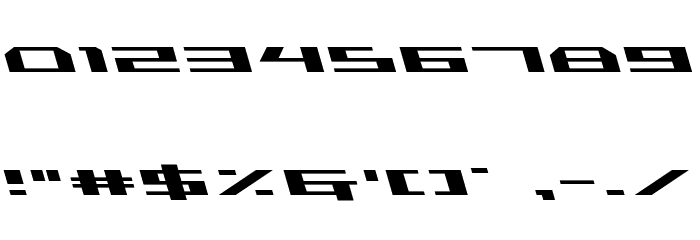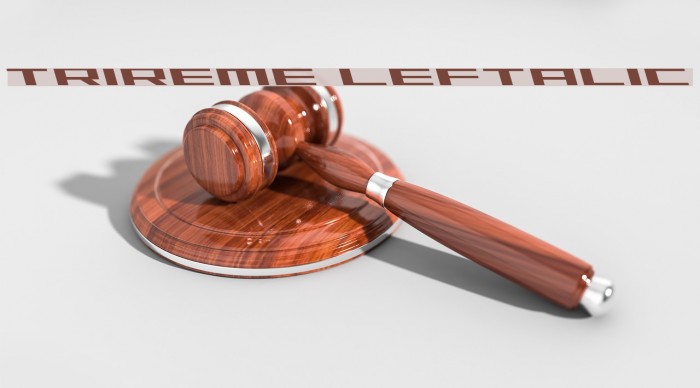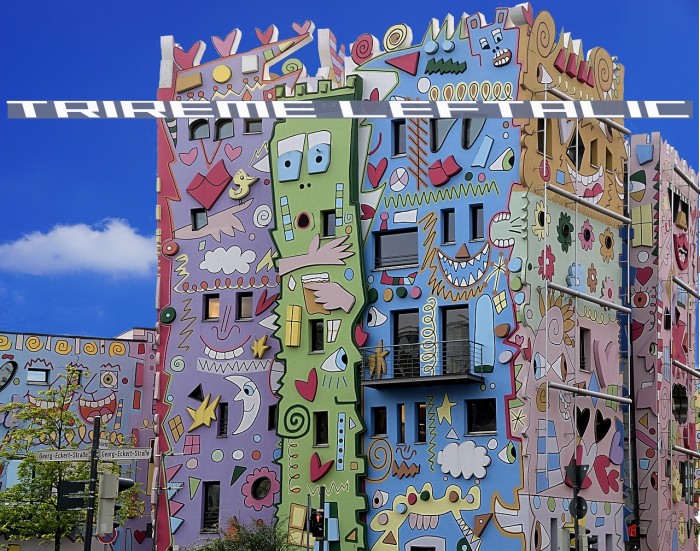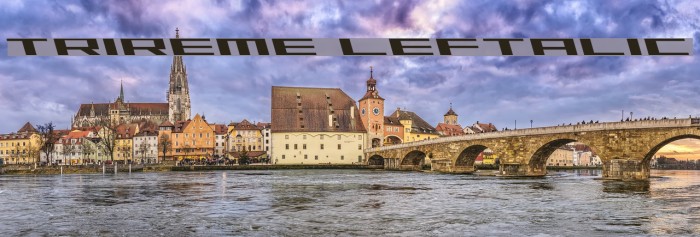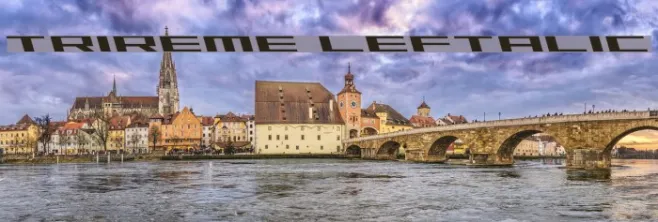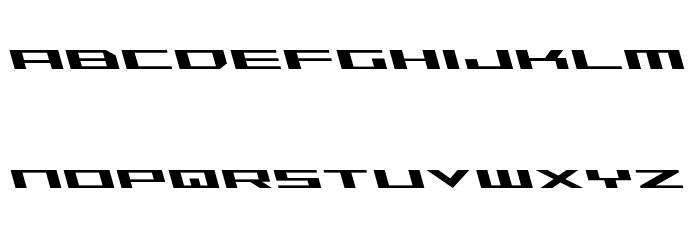
Trireme Leftalic Font
✎ Futuristic
Trireme Leftalic Description
This font features a futuristic and angular design, characterized by sharp edges and a distinct slant to the left. The uppercase and lowercase letters maintain a consistent geometric style, with each character exhibiting a unique cut-out pattern that adds to the overall dynamic appearance. The numerals and special characters follow the same design principles, ensuring uniformity across all glyphs. The font's bold and striking nature makes it ideal for attention-grabbing applications, while the leftward slant gives it a sense of motion and speed.
| Overall Style | Futuristic |
| Proposed Projects | Ideal for sci-fi themed projects, video game titles, tech branding, and dynamic posters. |